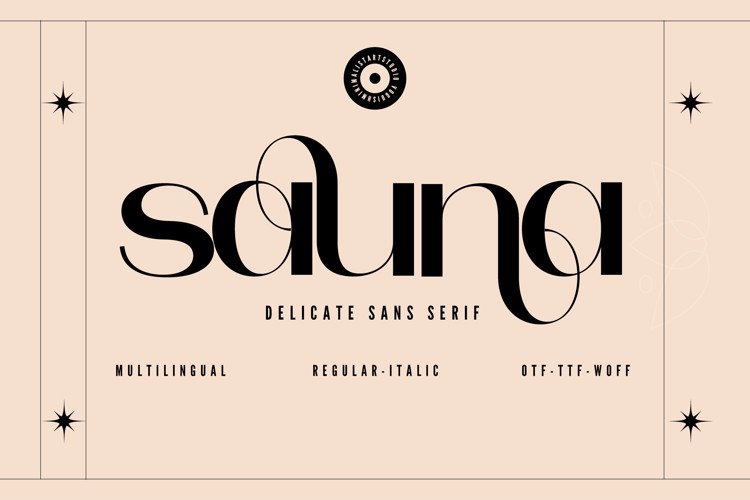
Sauna Font
๐จ Font Name: [Sauna ] by Minimalist Art Studio
๐จ Font Description: Sauna is a delicate sans serif with soft curves and multilingual supportโideal for poetic layouts, minimalist branding, and editorial elegance.